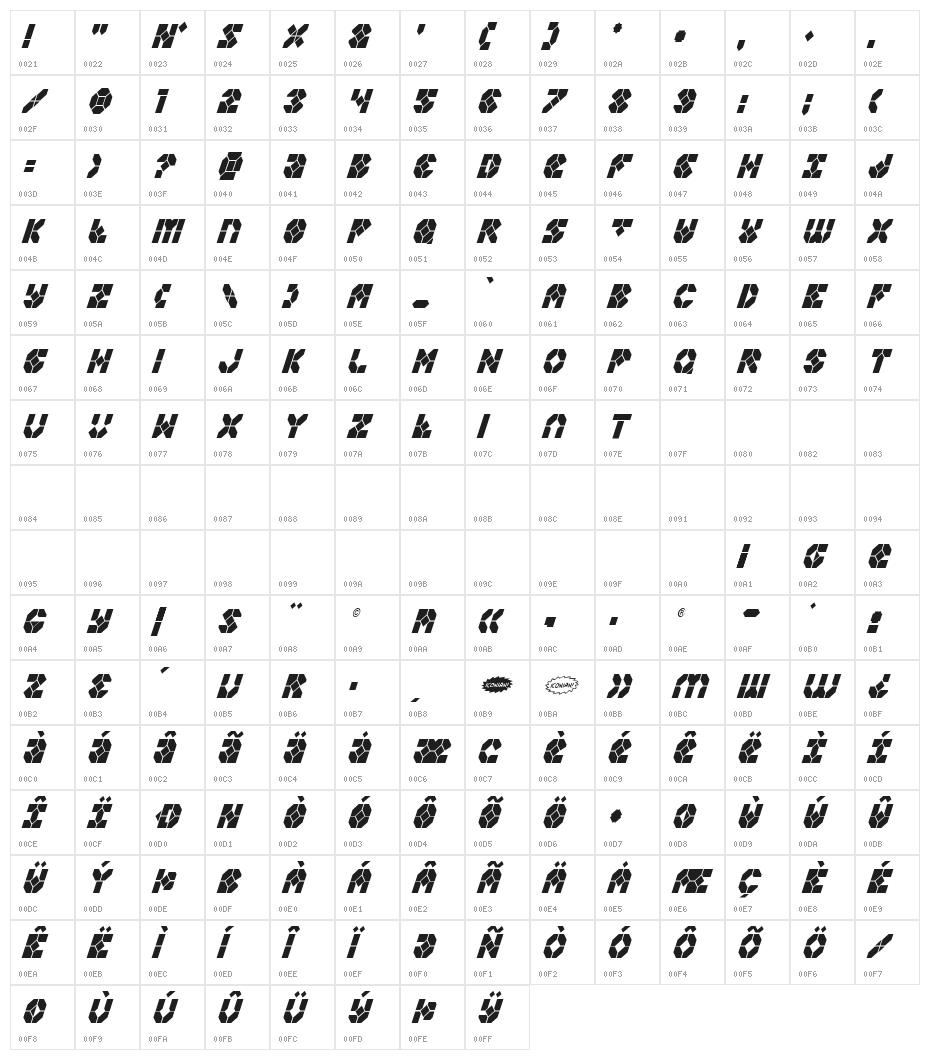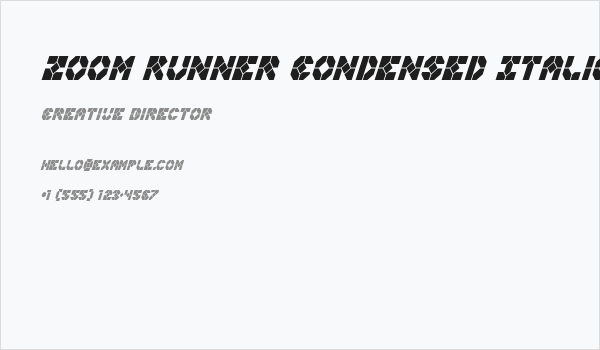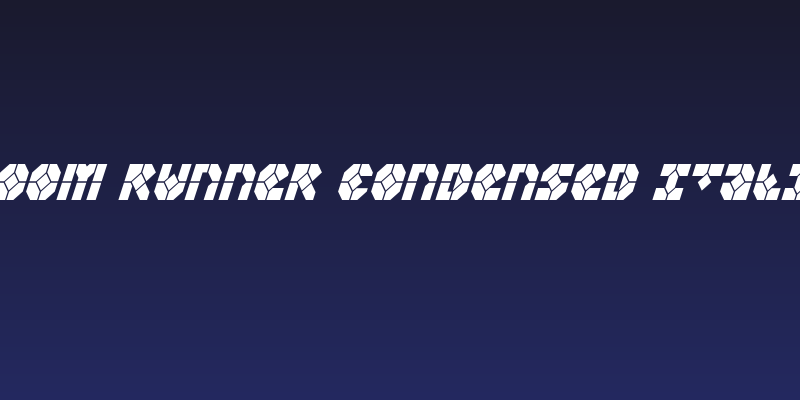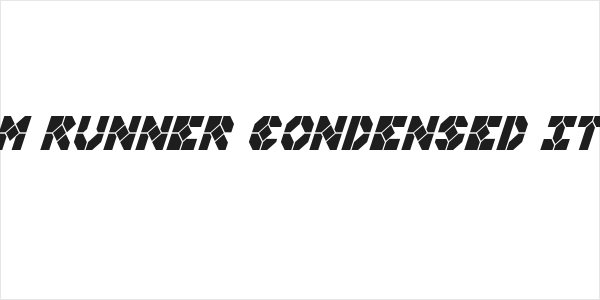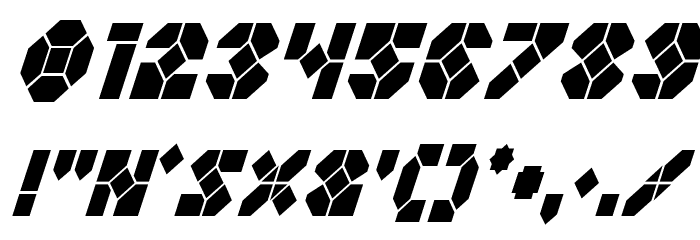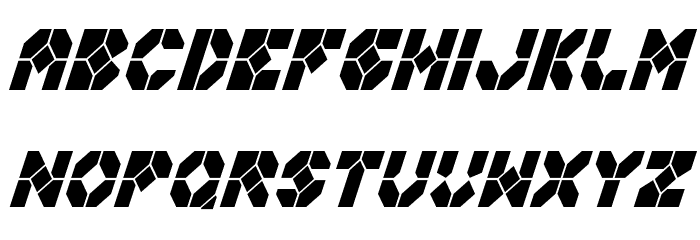
Zoom Runner Condensed Italic Font
Zoom Runner Condensed Italic Description
This font features a bold, geometric design with a distinct italic slant, giving it a dynamic and futuristic appearance. The characters are constructed from angular shapes, creating a fragmented yet cohesive look. The condensed style enhances its modern aesthetic, making it suitable for attention-grabbing headlines or logos. The uppercase and lowercase letters maintain a consistent style, while the numbers and special characters integrate seamlessly into the overall design. The font's unique structure and bold presence make it ideal for projects that require a strong visual impact.
| Overall Style | Futuristic |
| Proposed Projects | Ideal for futuristic branding, tech-related logos, video game titles, and sci-fi themed posters. |